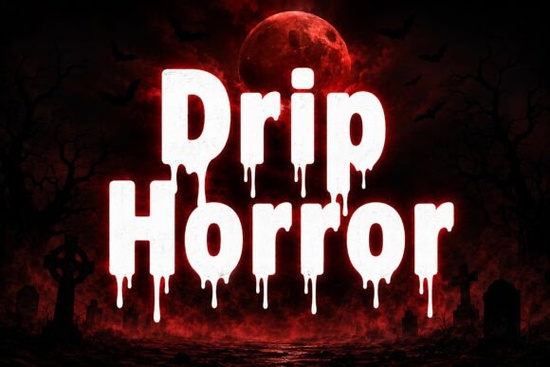
Designers, crafters, and small business owners looking for a striking font to add a spooky twist to their projects will find Drip Horror Font to be a standout choice. This bold and terrifying display font is perfect for anyone wanting to create a chilling atmosphere in their work. With its unique dripping effect, it draws inspiration from classic Halloween aesthetics, horror movies, and creepy storytelling. Whether you're working on a haunted house invitation or a horror movie title, Drip Horror delivers the right vibe without sacrificing readability.
The font’s dramatic letterforms mimic a blood-like effect, making your text look eerie and unforgettable. It works well for a variety of applications, including YouTube thumbnails, gaming graphics, party invitations, book covers, and merchandise. Its versatility makes it a valuable addition to any designer’s toolkit, especially when the goal is to evoke fear or suspense. The visual impact is strong, but the design remains legible even at smaller sizes, which is important for practical use.
Why Drip Horror Font Stands Out
Drip Horror Font isn’t just another horror-themed typeface it’s designed with attention to detail and functionality. The dripping effect adds a layer of texture that can make your designs feel more dynamic and immersive. Unlike some fonts that prioritize style over usability, Drip Horror maintains a balance between visual appeal and clarity. This makes it ideal for both digital and print projects where the message needs to be clear but also visually engaging.
For those who enjoy experimenting with different styles, this font offers a fresh approach to horror typography. It can be used as a standalone element or paired with other fonts to create contrast and depth. The boldness of the letters ensures that your message stands out, while the dripping effect adds an extra level of intrigue. Whether you're creating a social media post or a promotional flyer, Drip Horror helps you make a strong impression.
Best Uses for Drip Horror Font
One of the most common uses for Drip Horror Font is in Halloween-themed designs. From posters to stickers, it brings a sense of urgency and fear that fits perfectly with the season. It’s also great for horror movie titles, where the font can help set the tone before the audience even watches the film. For game developers, this font can enhance the overall aesthetic of a game’s UI or marketing materials.
Businesses that sell themed merchandise can benefit from using Drip Horror Font on apparel, mugs, and other products. It adds a unique touch that appeals to fans of horror and gothic styles. Additionally, it’s useful for branding projects that want to convey a bold and daring image. The font’s versatility means it can be adapted to many different formats and mediums without losing its impact.
- Halloween event flyers
- Spooky social media posts
- Book covers and merchandise
- YouTube thumbnails and gaming graphics
- Party invitations and promotional materials
How to Use Drip Horror Font Effectively
To get the most out of Drip Horror Font, consider pairing it with simpler typefaces for contrast. This helps prevent the design from becoming too overwhelming. Using it as a headline or title can draw attention while keeping the rest of the text clean and readable. You can also experiment with color to enhance the dripping effect dark reds or blacks often work best for a blood-like appearance.
When working with this font, keep in mind that it’s best suited for display purposes rather than body text. Its intricate details may not render well at very small sizes, so it’s important to test it in different contexts. If you’re using it for print, make sure to check the resolution and formatting to ensure the dripping effect looks as intended.
Whether you're a hobbyist or a professional designer, Drip Horror Font provides a powerful tool for adding a horror-inspired touch to your work. Its unique style and strong visual impact make it a must-have for anyone involved in creative projects with a spooky or dramatic theme.
Quick Checklist:
- Test the font in different sizes and formats
- Pair it with simpler fonts for balance
- Use it as a headline or title for maximum impact
- Experiment with colors to enhance the dripping effect